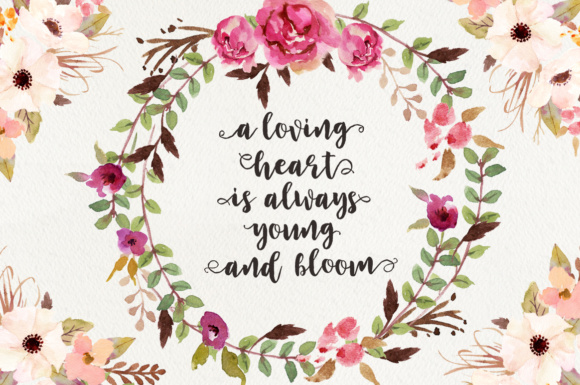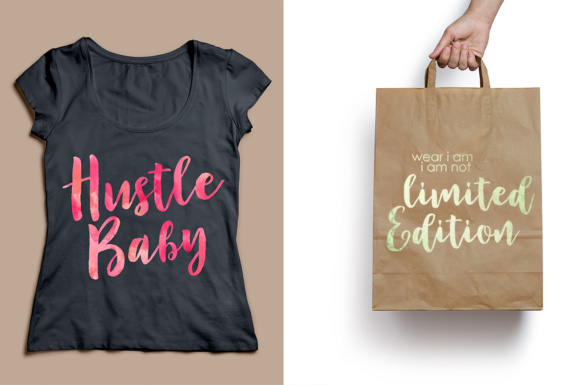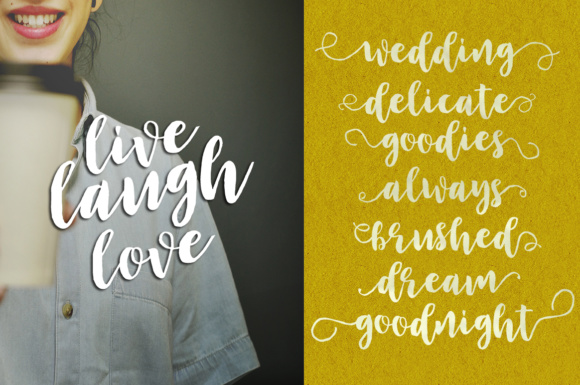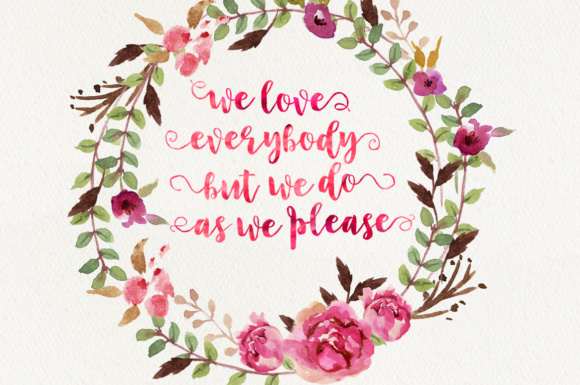
Adolescent Font
About Adolescent Font
Adolescent is a beautiful and kind looking script font, one that can add some refinement without losing that handcrafted appeal. This font excels in headlines, and works well in combination with other handwritten fonts.